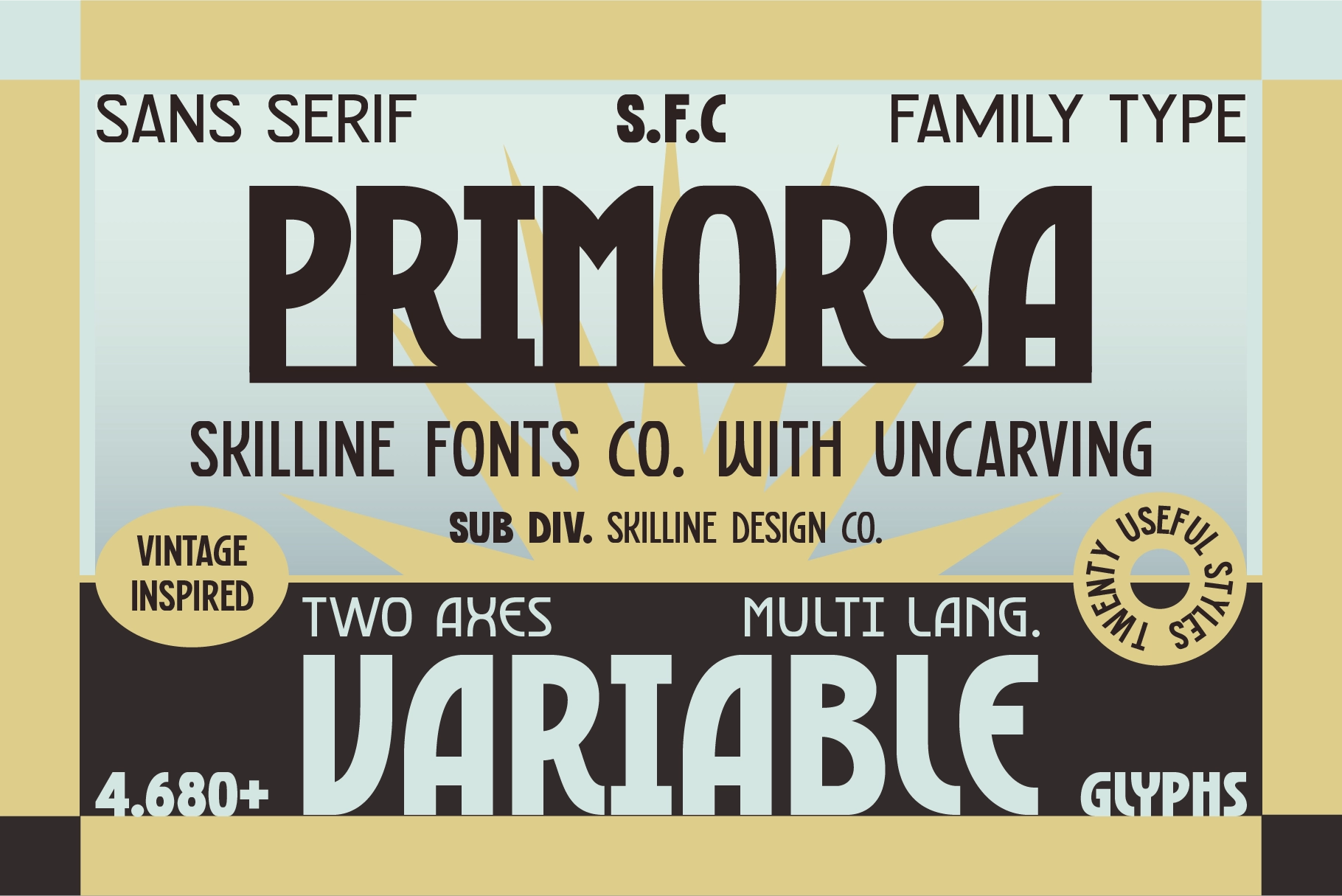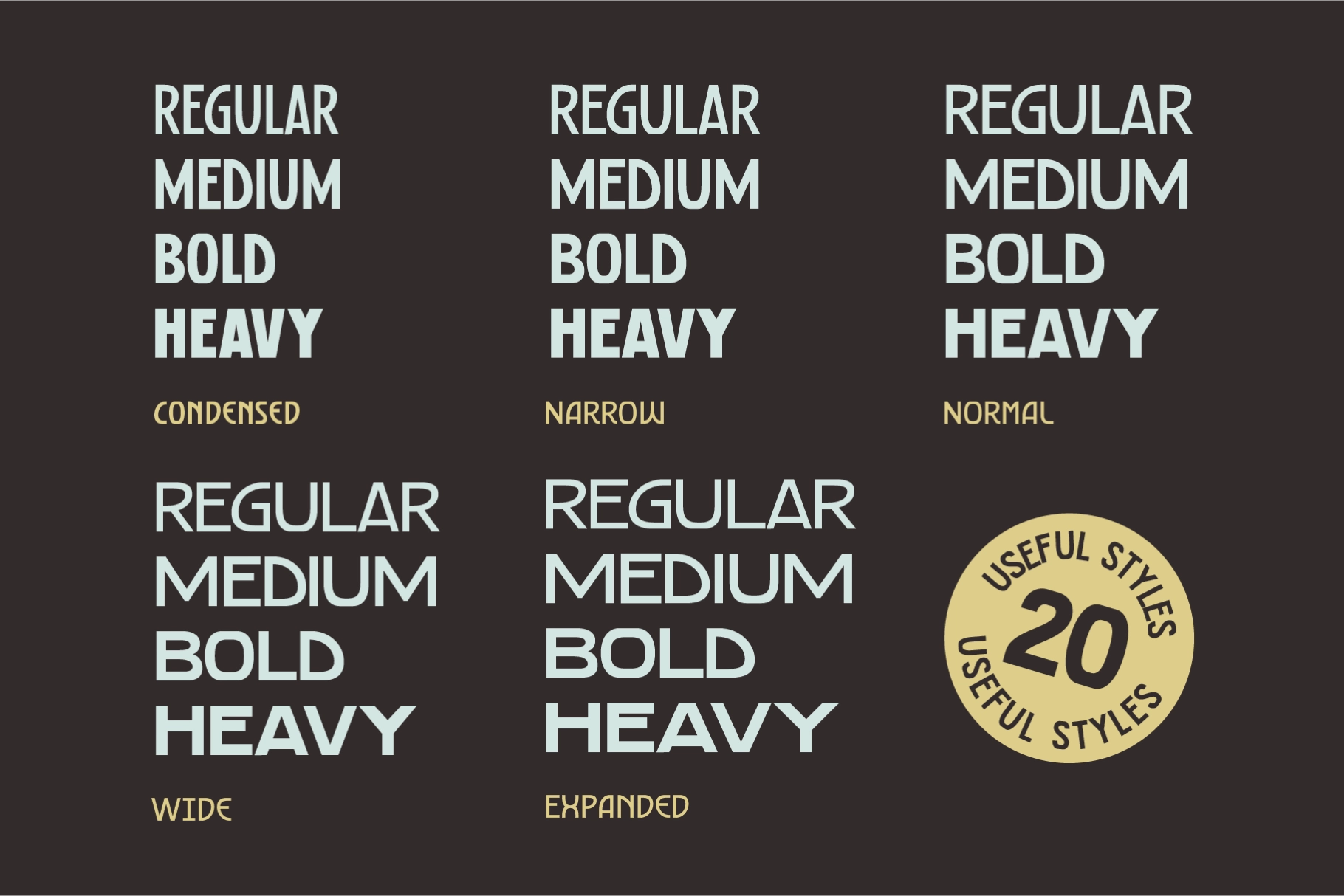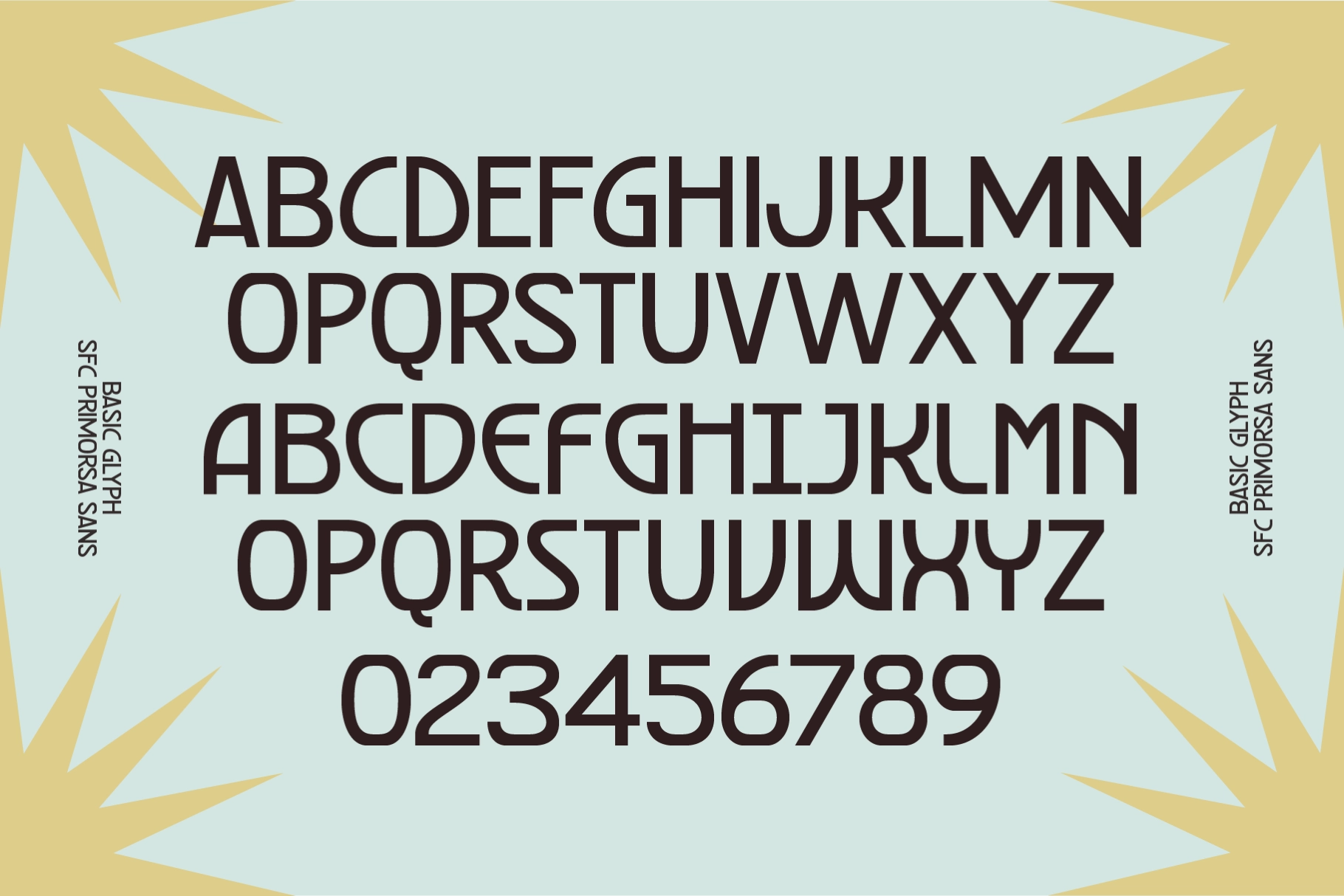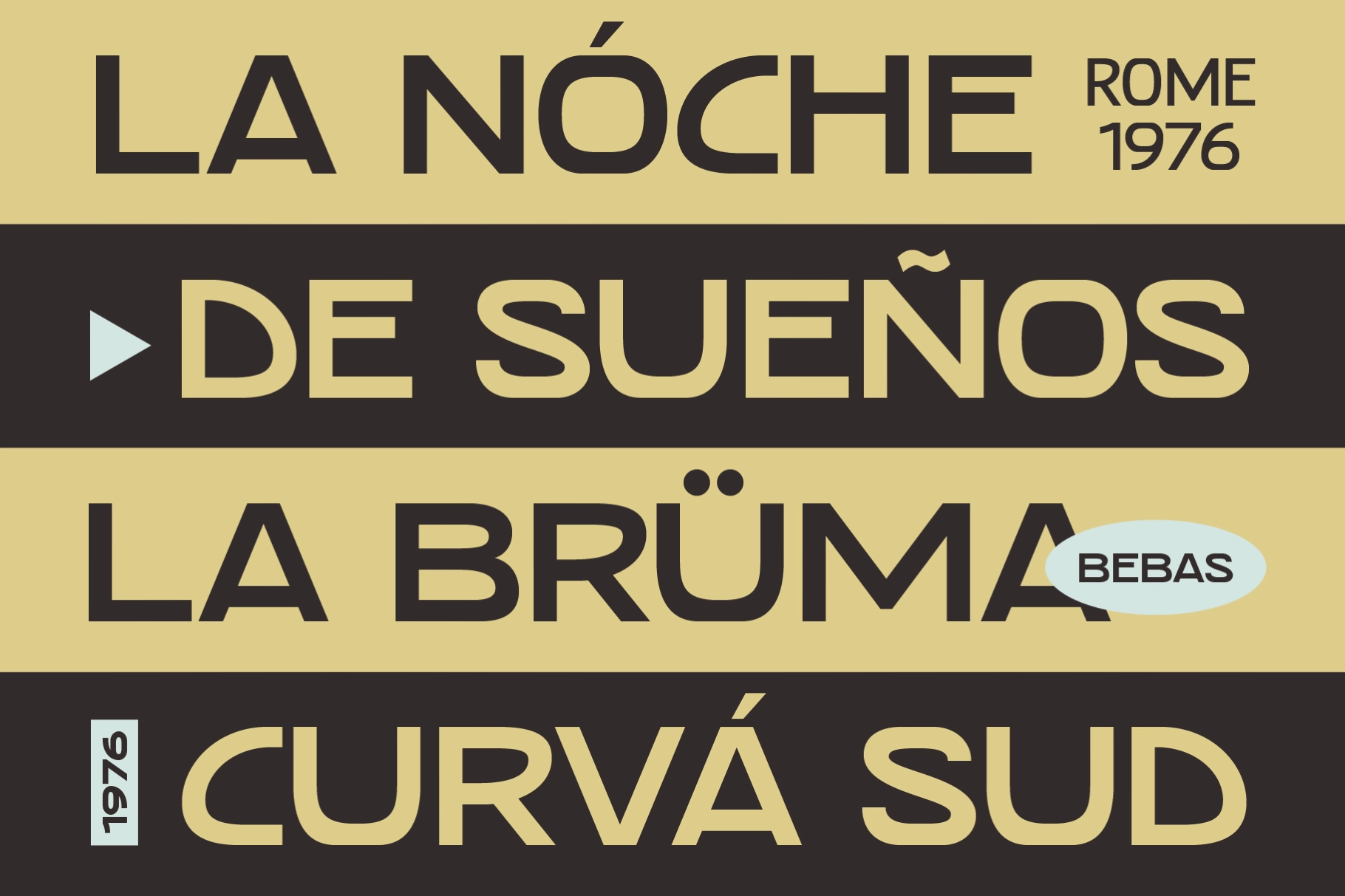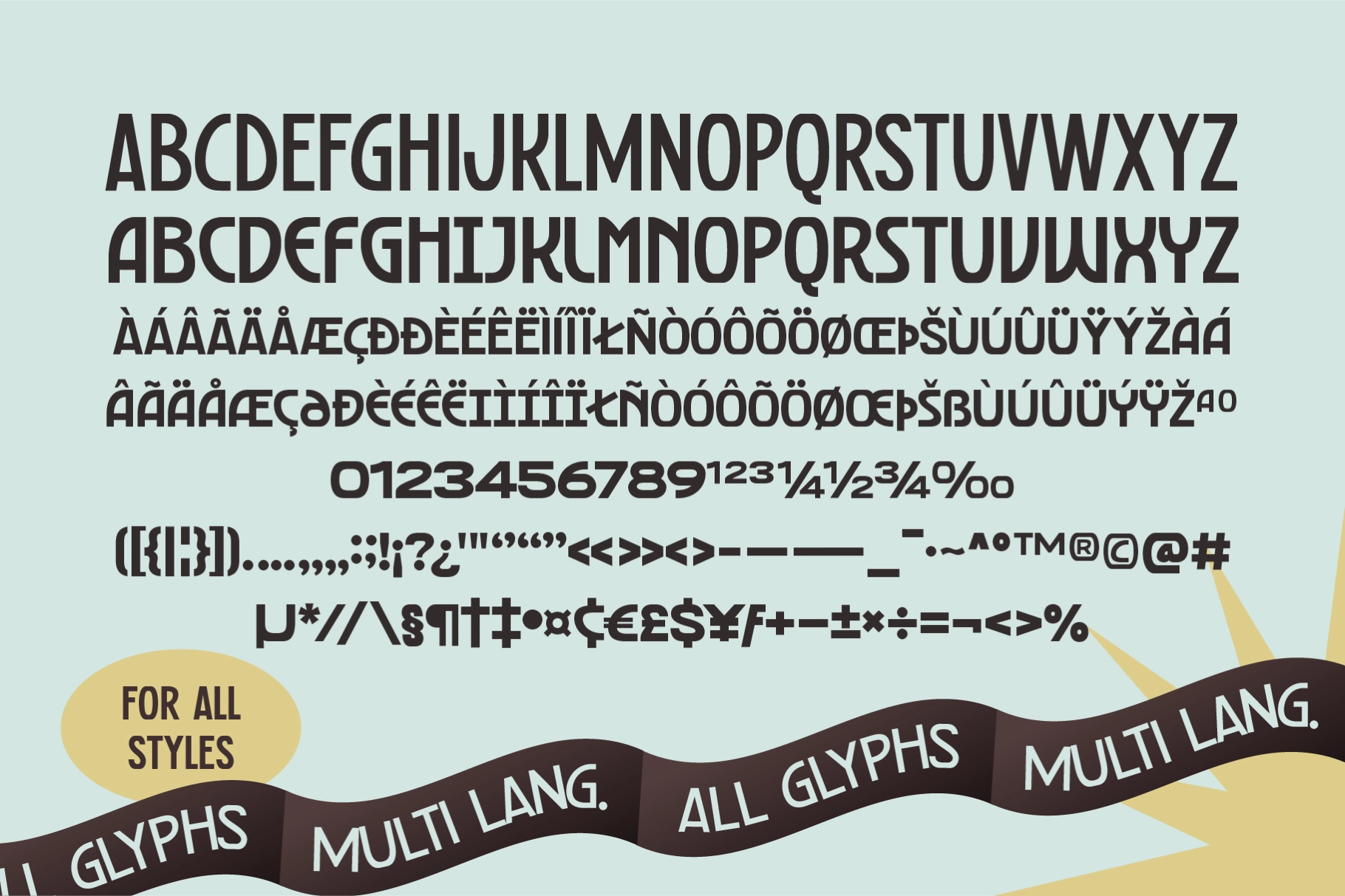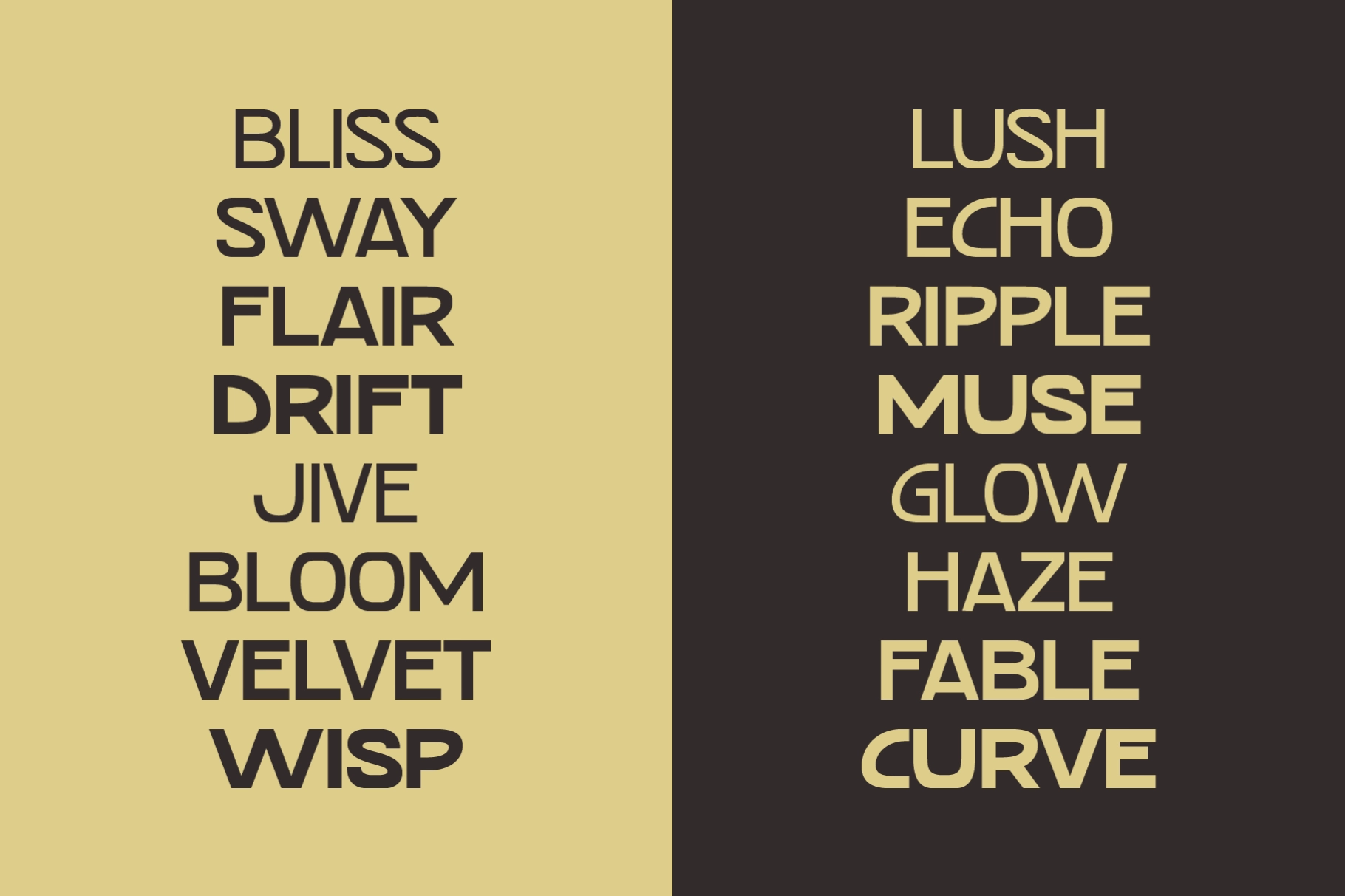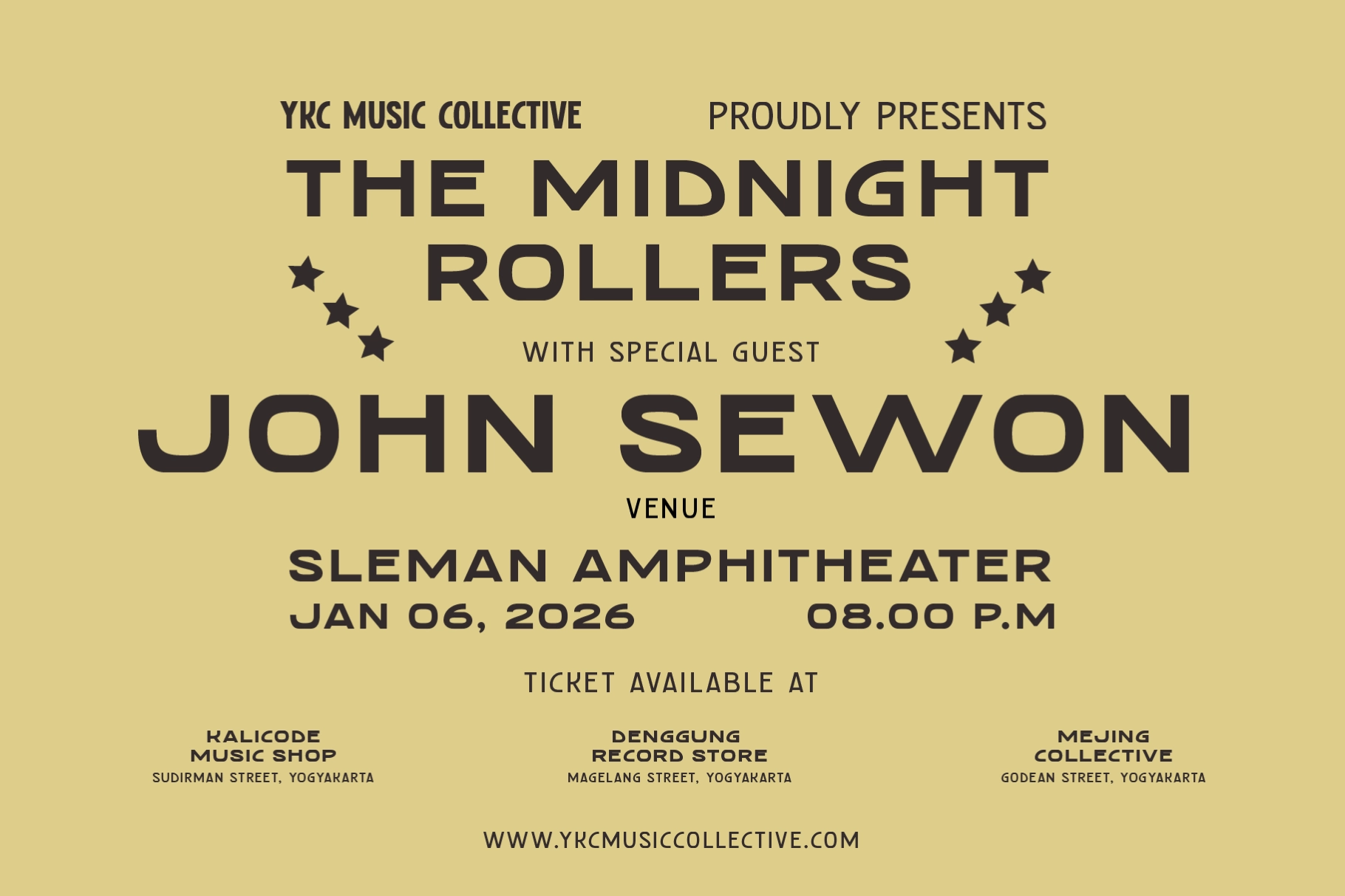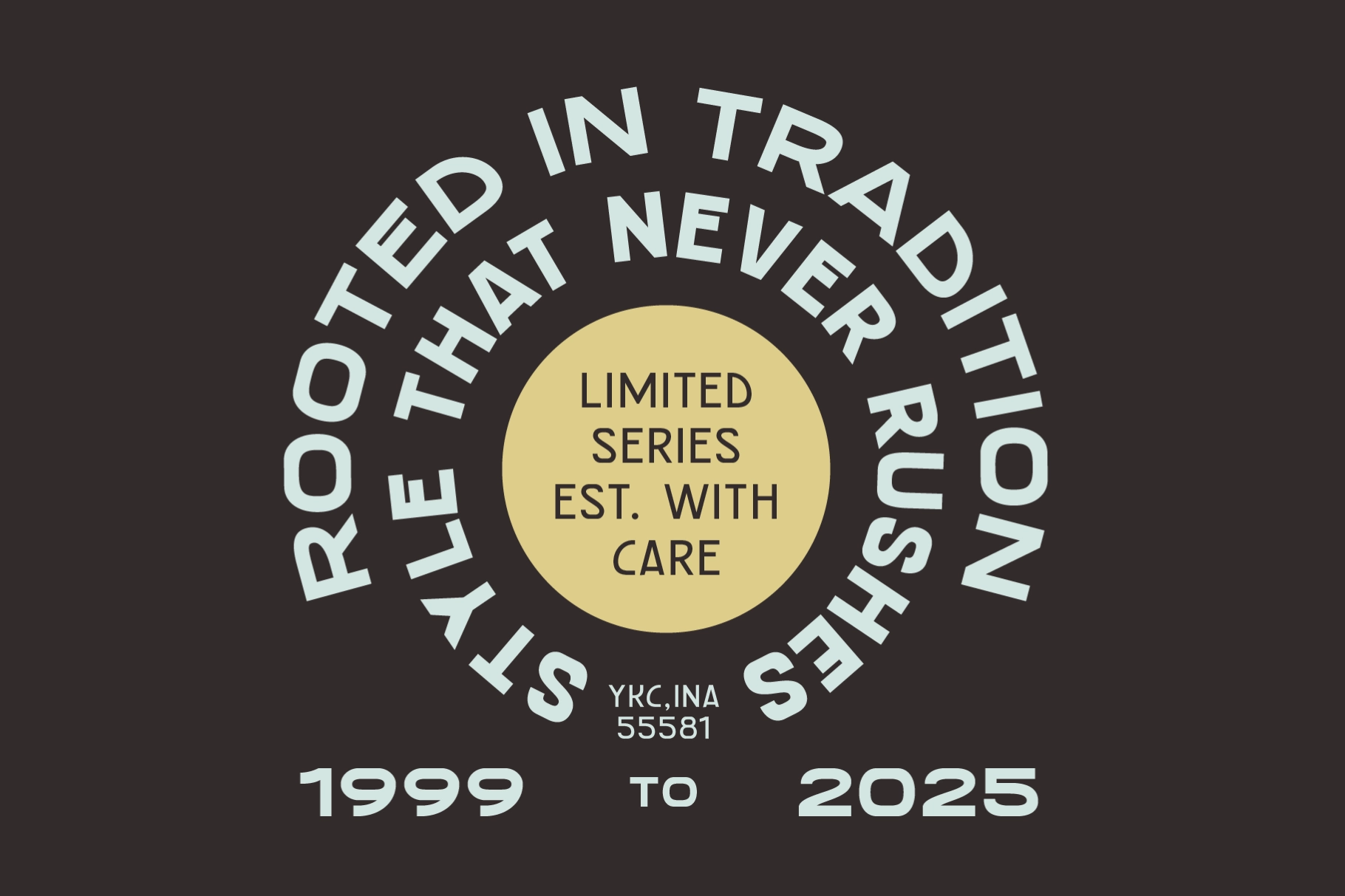
SFC Primorsa - 1920s Art Deco Font
Condensed
MedCond
BoldCondensed
HeavyCond
Narrow
MediumNarrow
BoldNarrow
HeavyNarrow
Heavy
Wide
MediumWide
BoldWide
HeavyWide
Expanded
MedExp
BoldExpanded
HeavyExpanded
SFC Primorsa is a modern sans serif variable family with a confident, vintage-inspired character. Designed as a complete font system, it features clean geometry, smooth curves, and strong letterforms for impactful visual communication.
With five widths, Condensed, Narrow, Normal, Wide, and Expanded and four weights, Primorsa offers 20 versatile styles for flexible layouts and consistent branding across print and digital media. It performs seamlessly in logos, editorial, posters, packaging, signage, and apparel, delivering clarity, personality, and professional strength.
- Sans Serif Family Typeface
- Two Axes for Flexibility
- High Readability